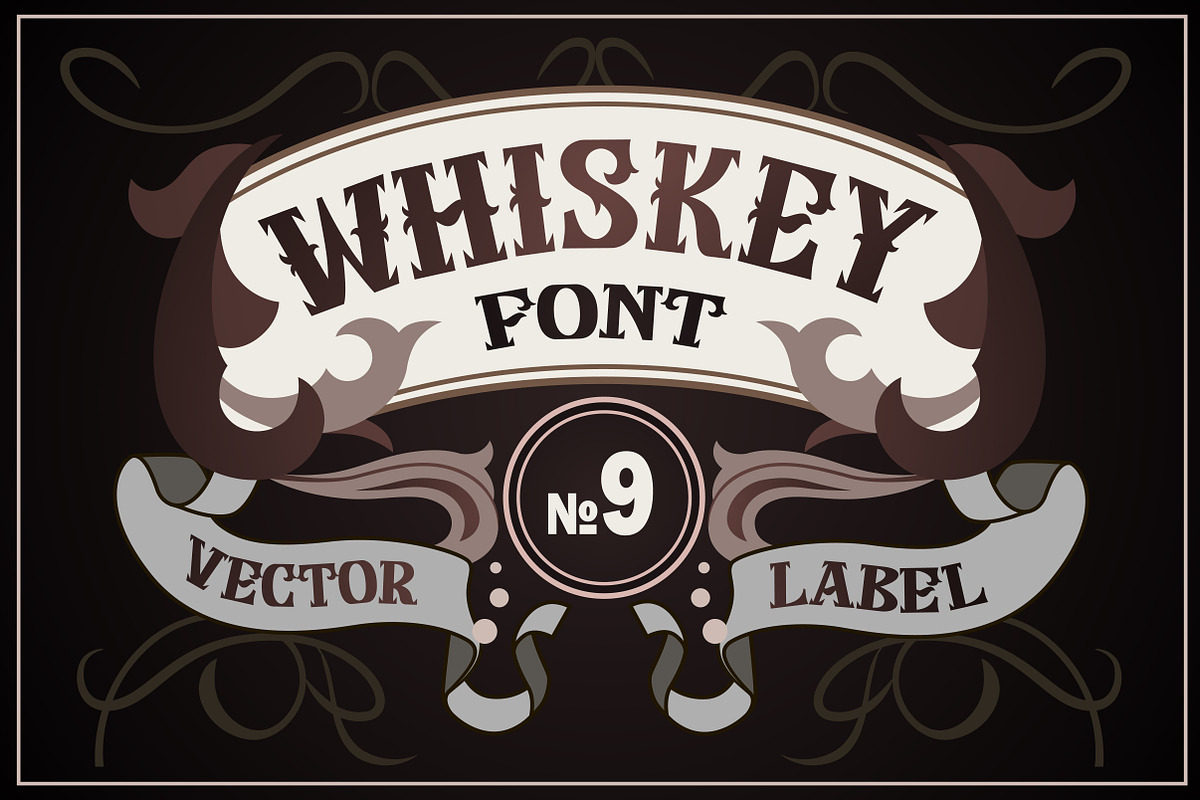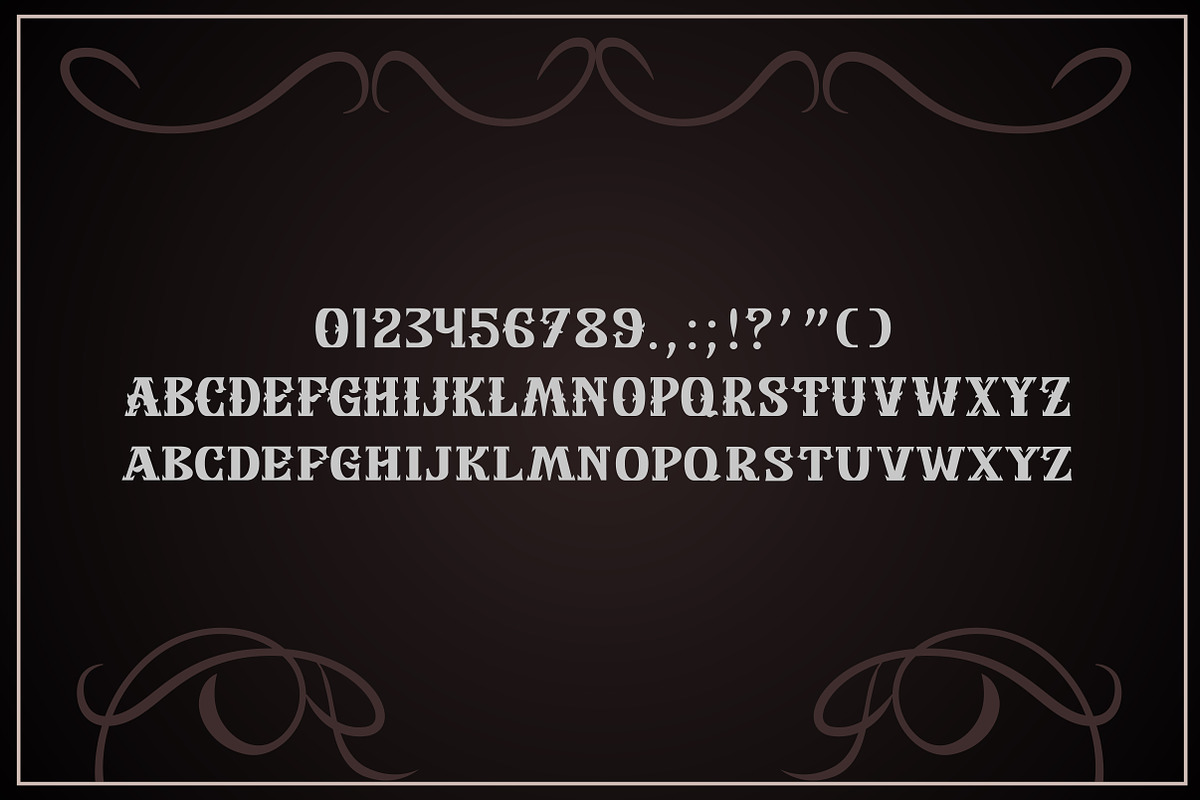
Whiskey font
Vintage label font. Alcogol label style with vintage ornament.
Why Whiskey font is worth a look
Whiskey font by Fractal fonts & graphics fits naturally into Branding, posters, packaging, typography.